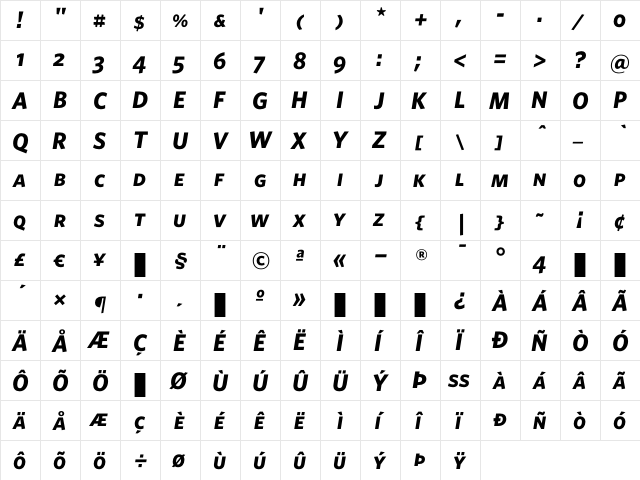
Whitney BoldItalicSC
Design Context for Whitney Typeface
Whitney is a composed and adaptable typeface that performs quietly and consistently across a wide range of design contexts. The slanted form adds forward momentum and visual energy. Its bold stroke weight gives it real presence on the page.
Pro Tip: Use Whitney for emphasis, pull quotes, and subheadings where its slanted energy can add rhythm to the layout.